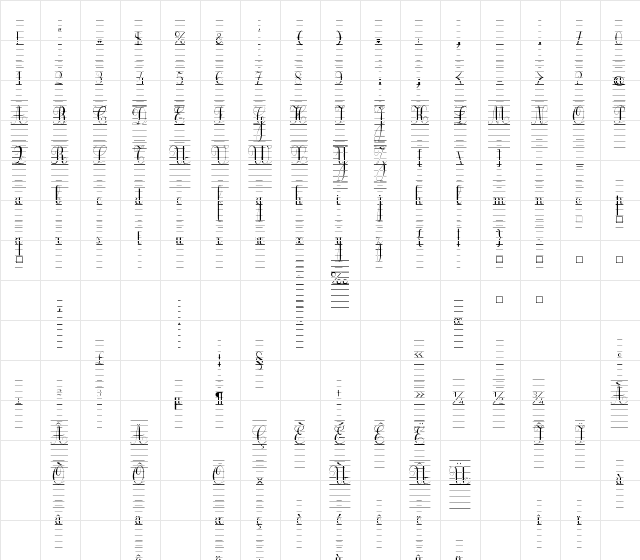
Ecolier_lignes Regular
Design Context for Ecolier_lignes Typeface
Ecolier_lignes is a composed and adaptable typeface that performs quietly and consistently across a wide range of design contexts.